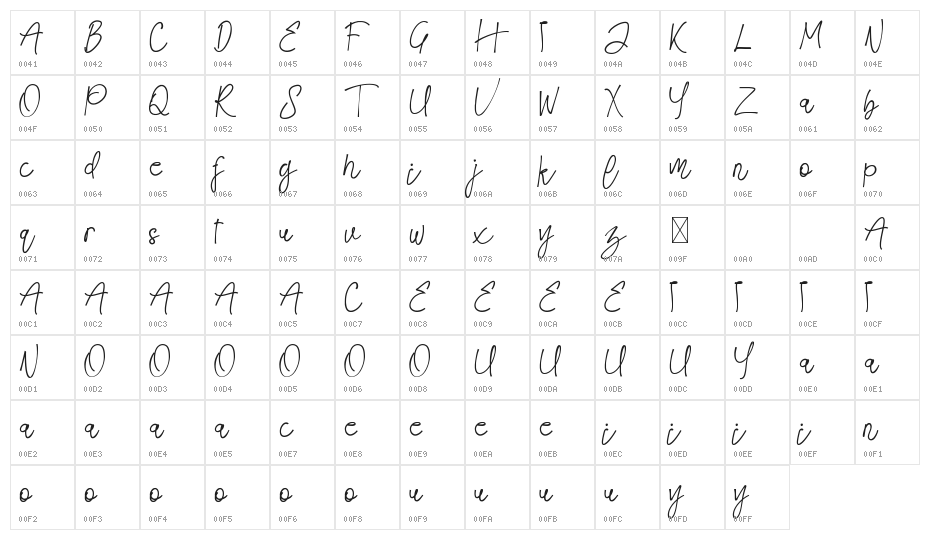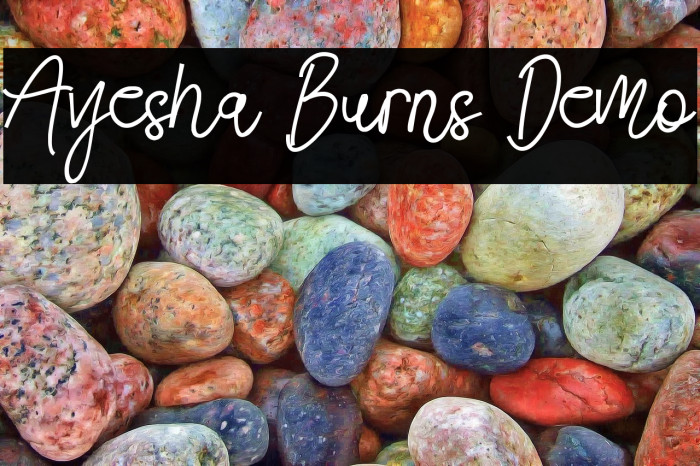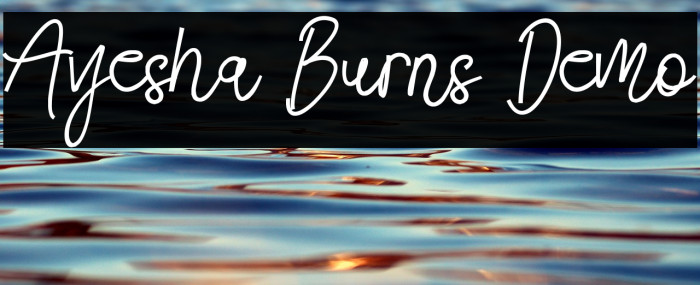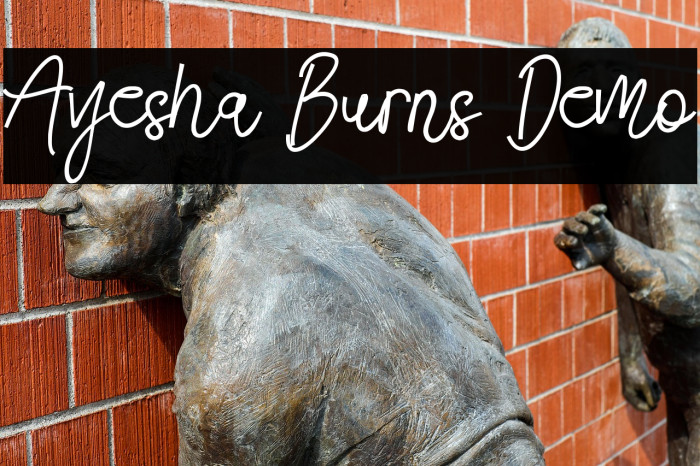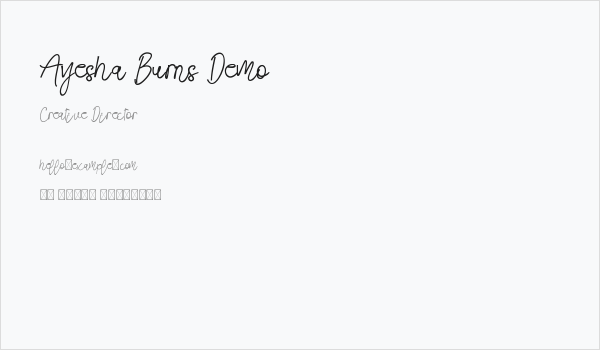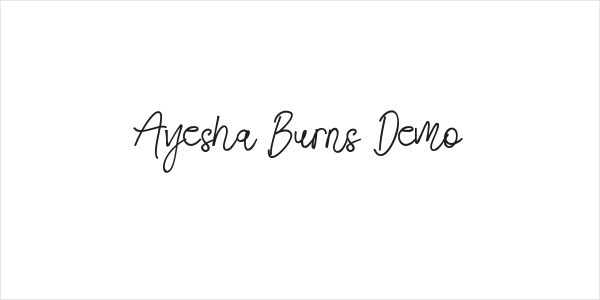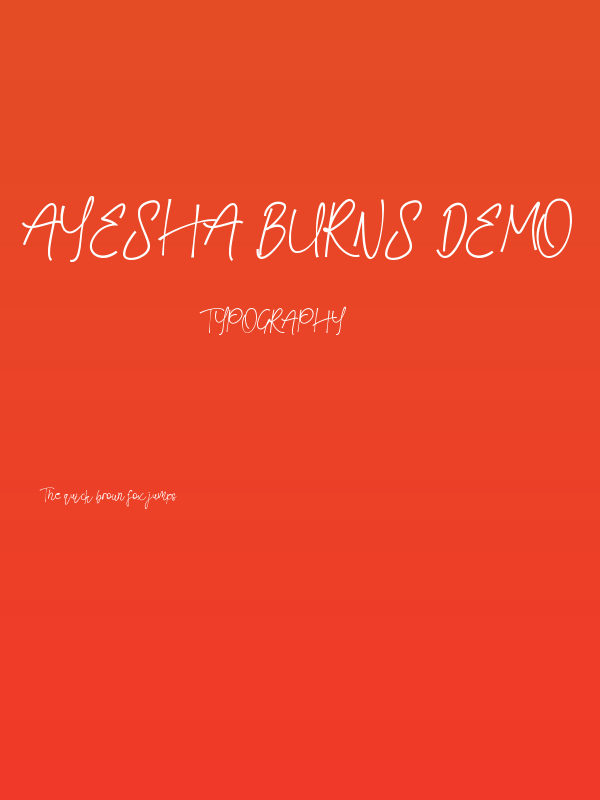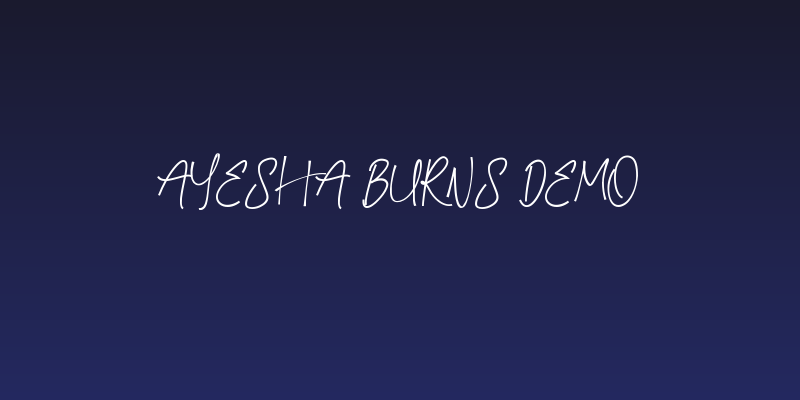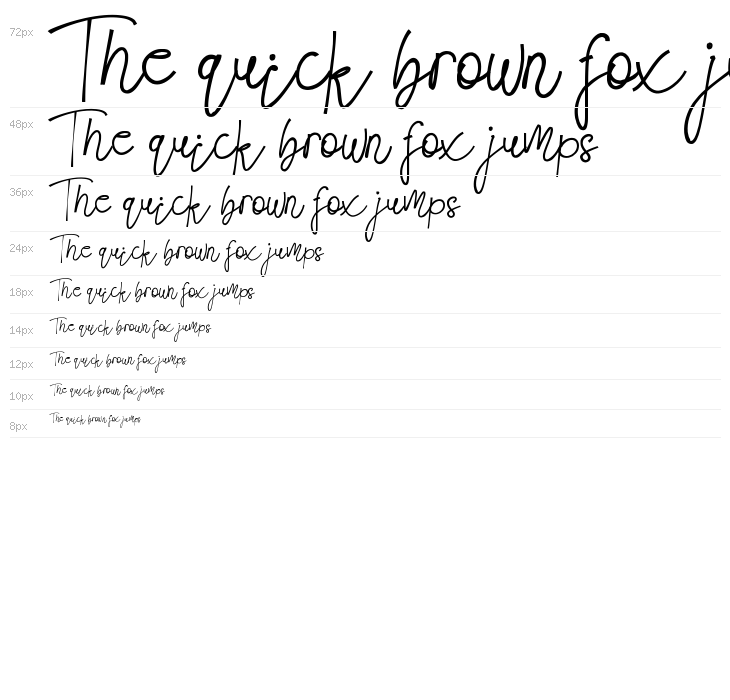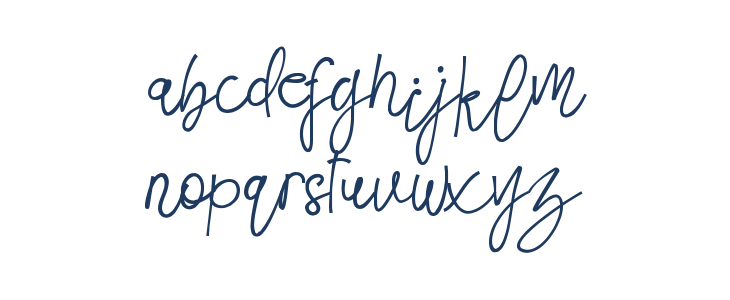
Ayesha Burns Demo Font
Ayesha Burns Demo Description
This font features a lively and dynamic handwritten style, characterized by its fluid and continuous strokes. The letters exhibit a playful and informal appearance, with varying heights and a slight slant that adds to its casual charm. The uppercase and lowercase letters maintain a consistent flow, while the numbers and special characters are crafted with the same energetic flair. This font's unique personality makes it suitable for projects that require a personal touch or a sense of spontaneity.
| Use Case | Logos, Invitations, Personal projects |
| Proposed Projects | Ideal for greeting cards, invitations, personal branding, and creative projects that require a handwritten touch. |